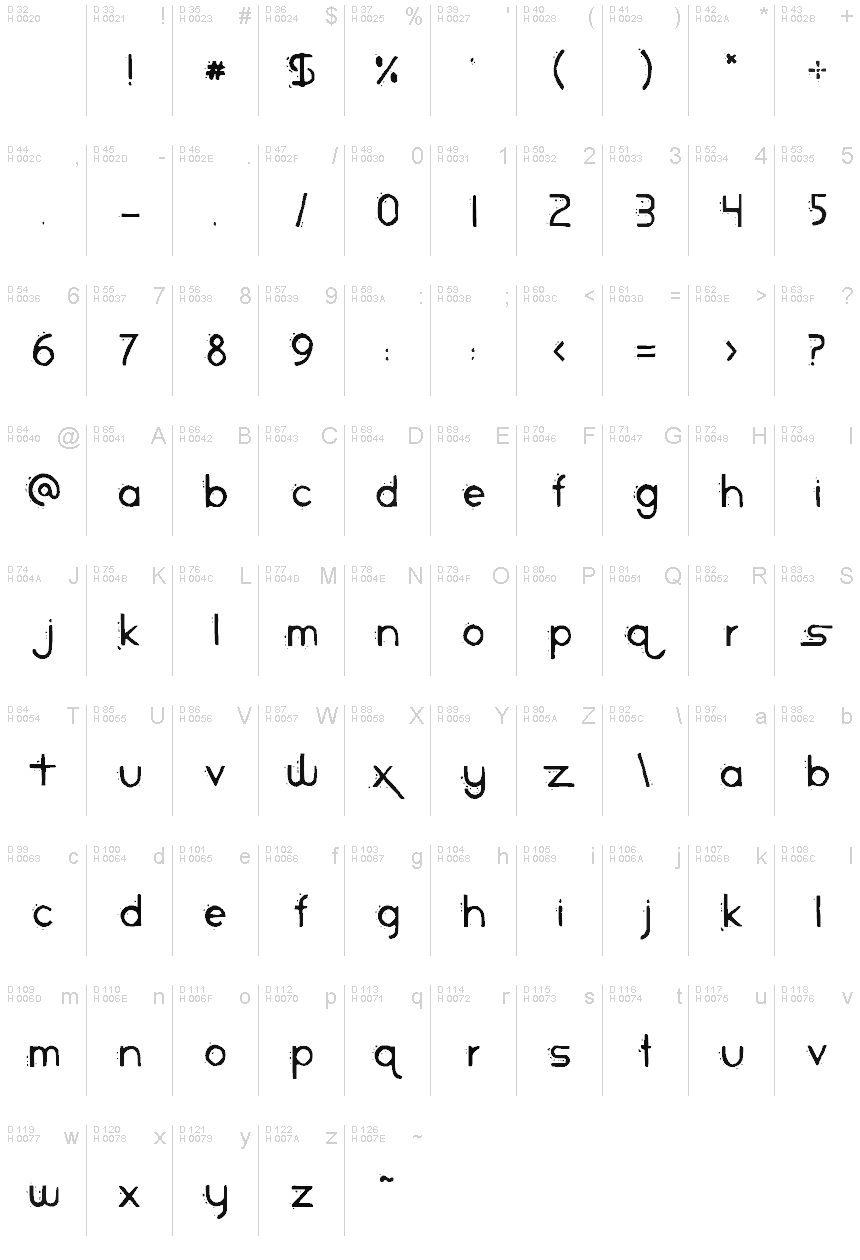
Piranha
Piranha is a captivating display font that exudes raw, eroded charm. Designed by Leonard Posavec of LeoSupply.co, this typeface boasts a striking, weathered aesthetic that effortlessly captures a sense of industrial grit and urban decay. The irregular, distressed letterforms lend an authentic, handcrafted feel, perfect for evoking a rugged, edgy vibe in a wide range of design applications.
From gritty album artwork and moody branding to impactful editorial layouts and bold signage, Piranha's distinct personality shines through, making it a versatile choice for designers seeking to make a powerful visual impact. Its unique character and bold presence ensure that this font will leave a lasting impression on any project it graces.